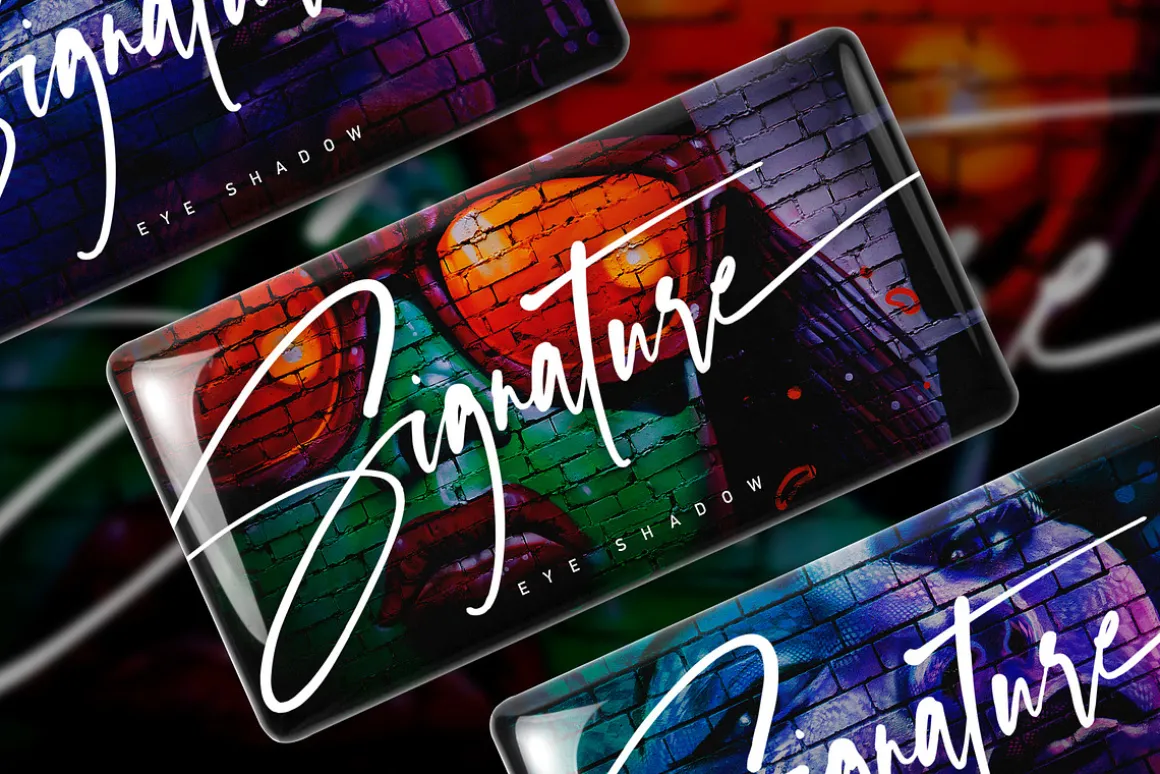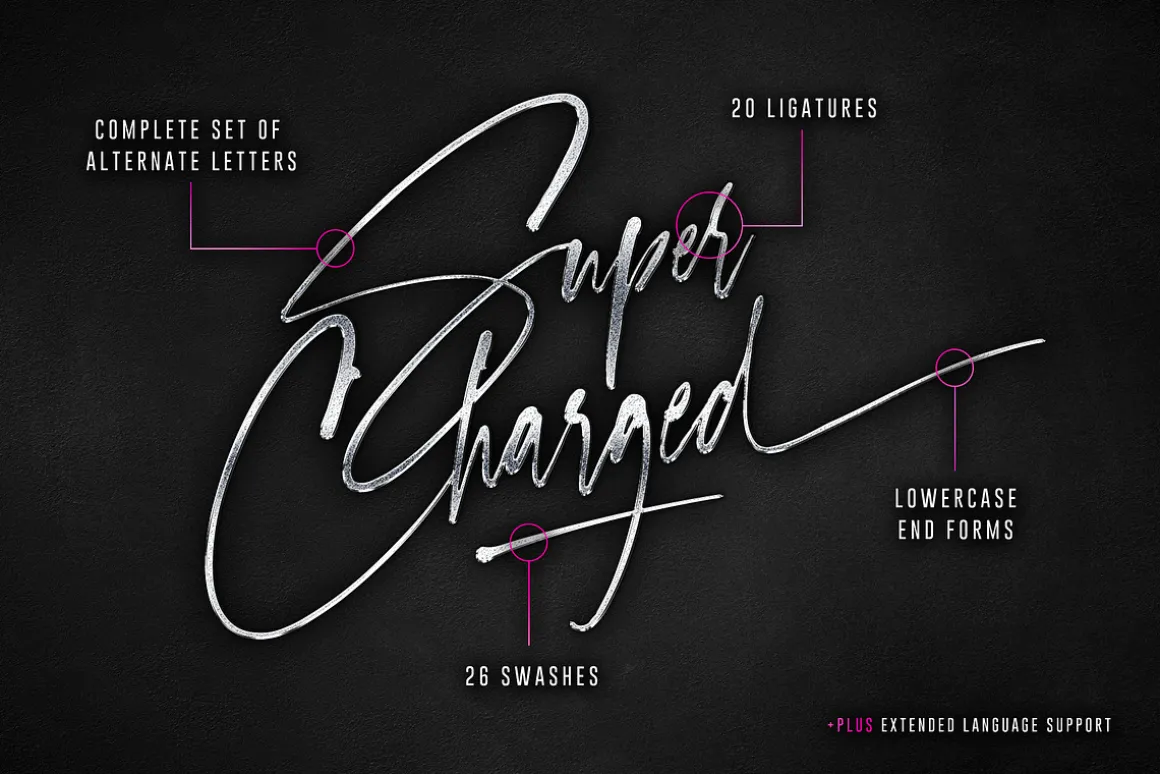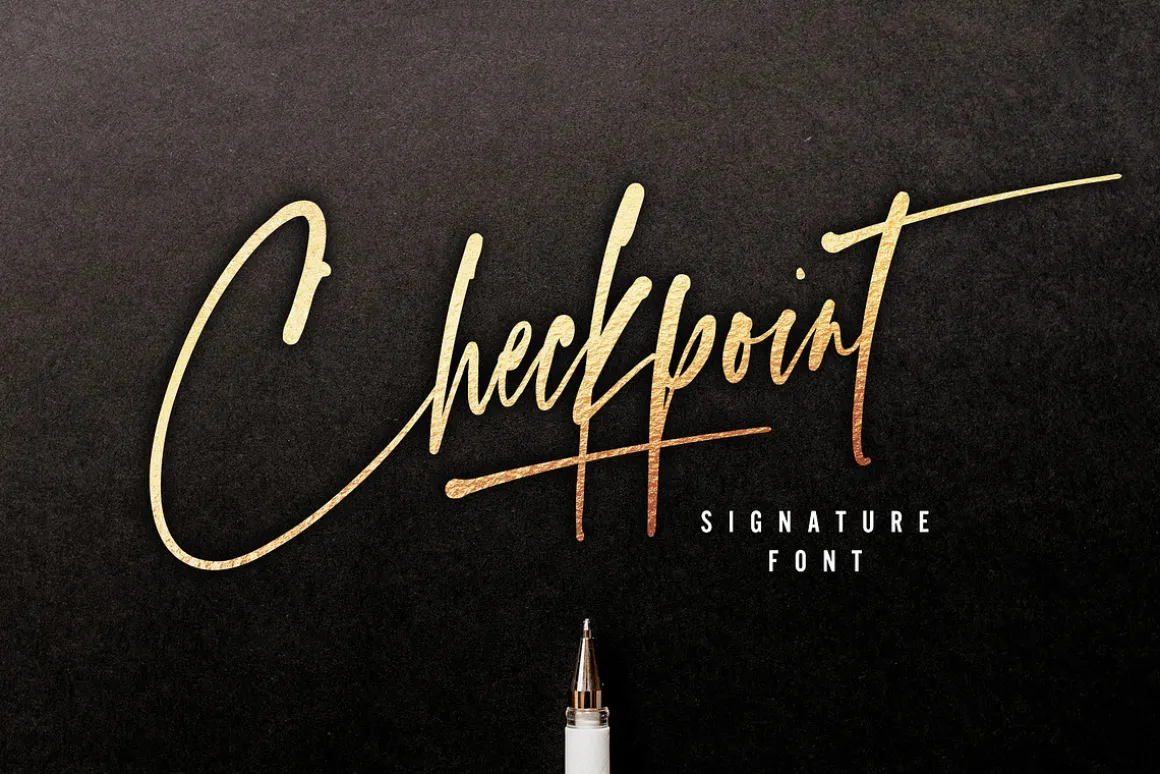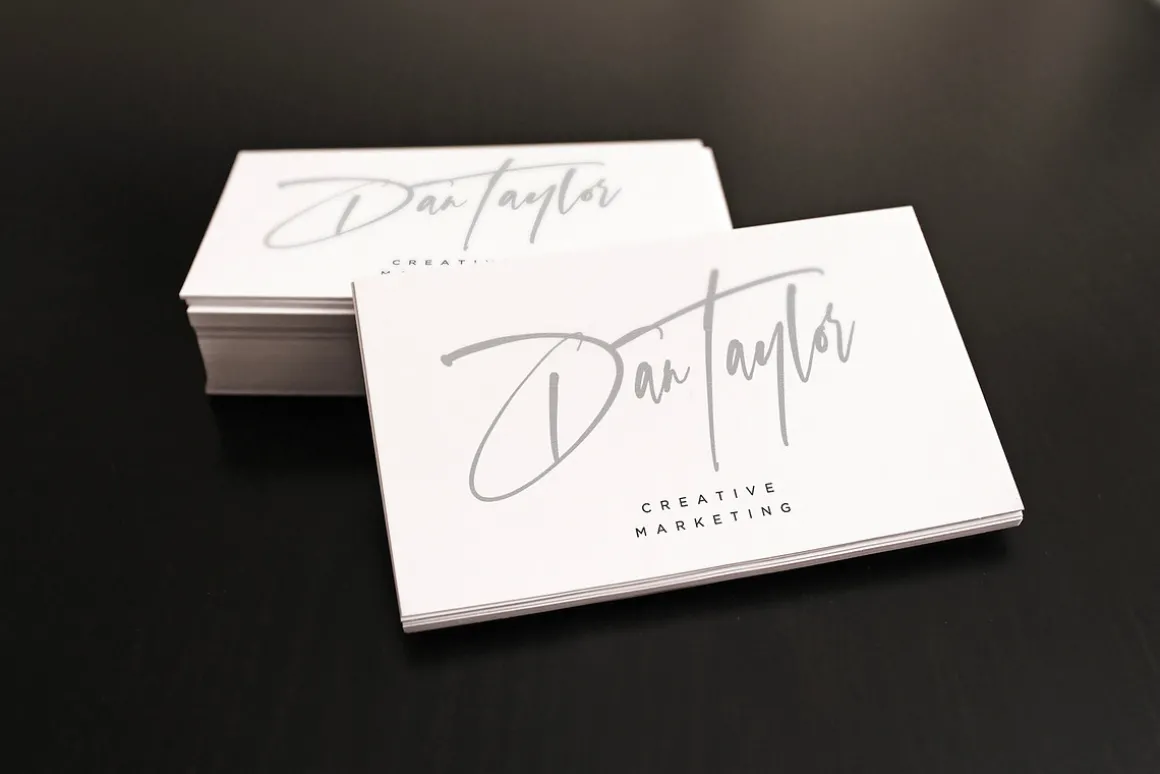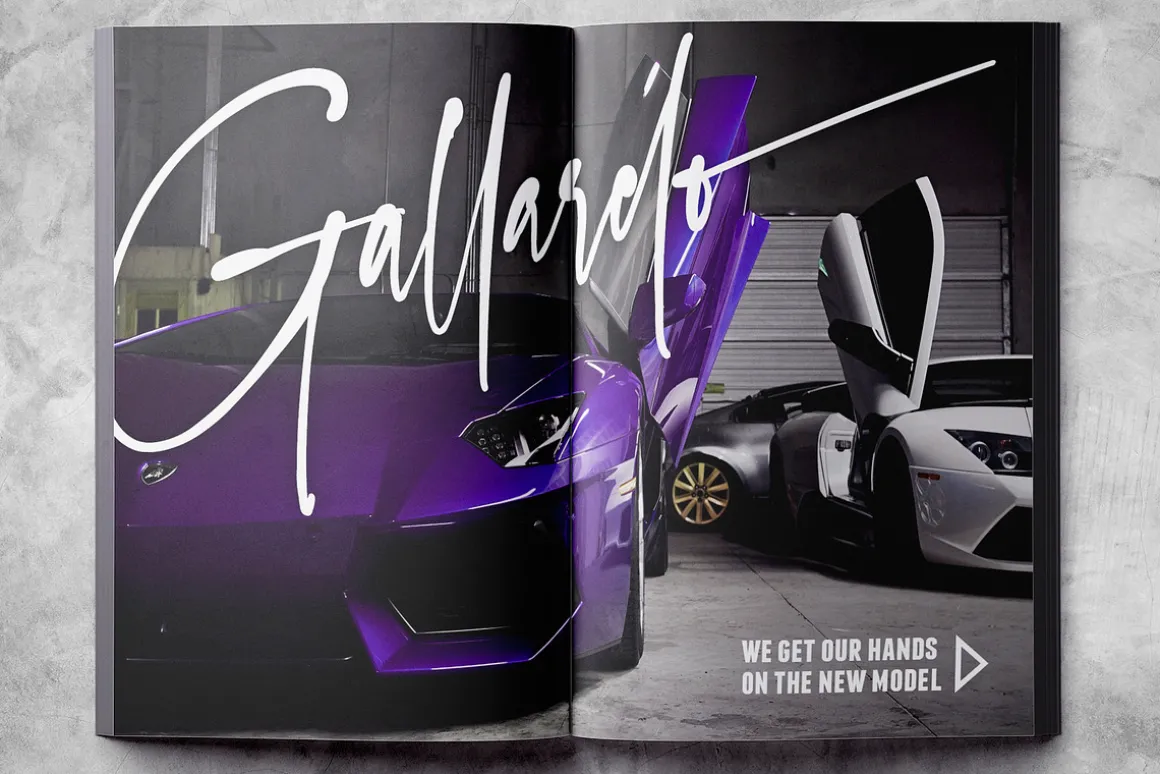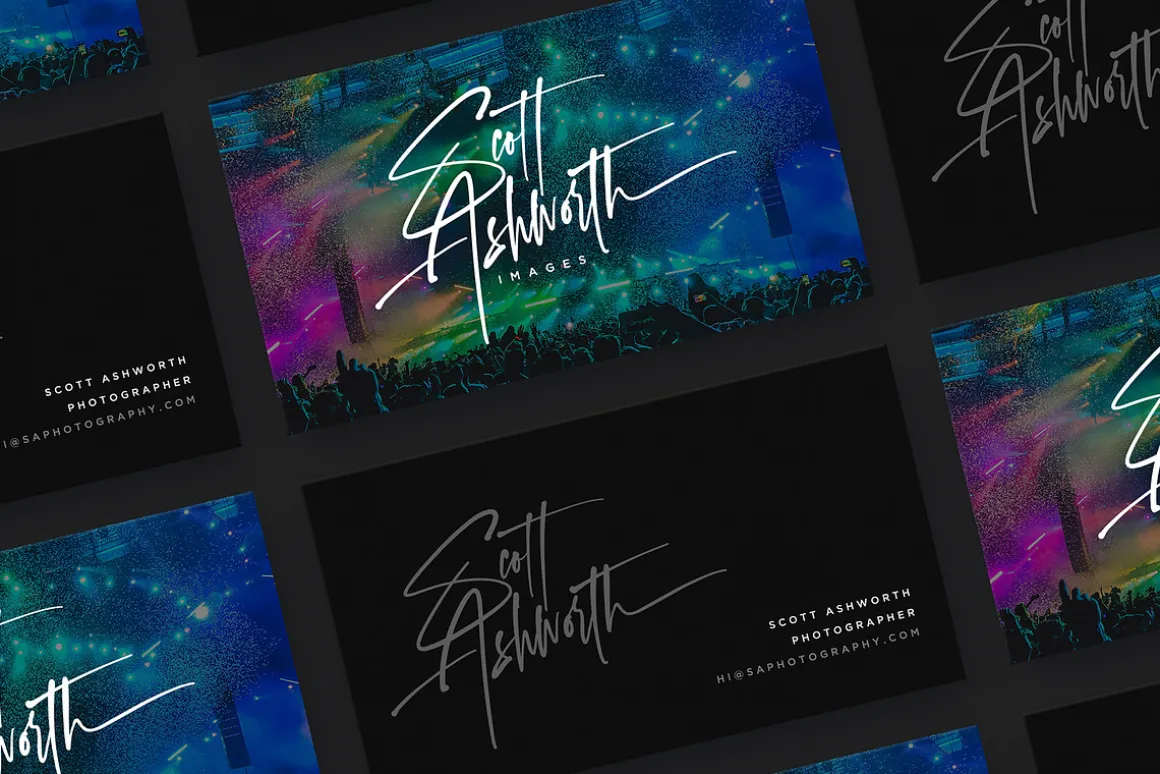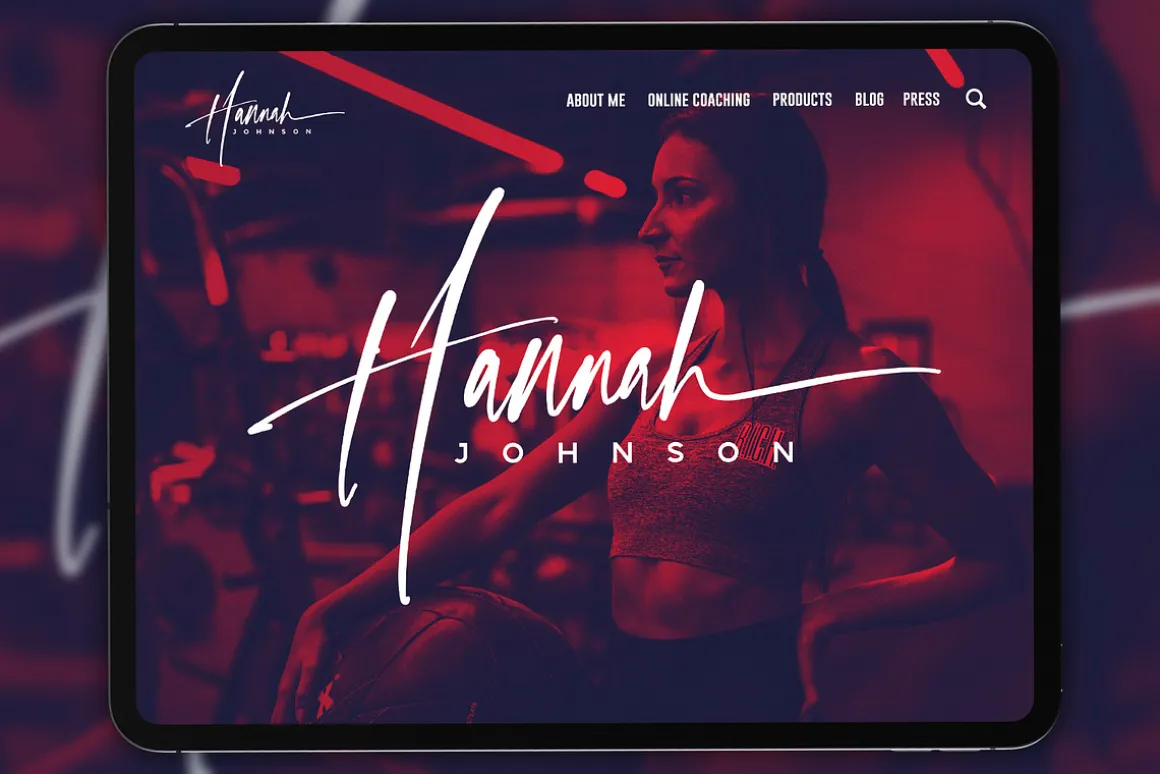
Make your point with Checkpoint Signature; a slick, high energy signature-style script font guaranteed to make a big impression. Digitally hand-drawn, it’s super-clean smooth flow and high-intensity pen strokes make an unmistakeable impact in logo/branding projects, large header text and product packaging.
Checkpoint Signature is packed full of extra features to give you plenty of customisation options. This includes; a full set of upper and lowercase alternate letters, 20 ligatures (double letters) to help the script lettering flow more naturally, 26 swashes and a full set of lowercase end forms to give your text that extra flair and finesse.
Checkpoint Signature • A smooth-edged signature style font containing upper & lowercase characters, numerals, and a large range of punctuation.
Checkpoint Signature Alt • This is a second version of Checkpoint, with a completely new set of both upper and lowercase characters. If you wanted to avoid letters looking the same each time to recreate a custom-made style, or try a different word shape, simply switch to this font for an additional layout option.
Checkpoint Signature Swash • A third font containing 26 hand drawn swashes. Simply type any a-z or A-Z character in this font to generate a swash. Perfect for underlining your Checkpoint text and adding a bit of extra flair!
Ligatures • 20 ligatures (double-letters) are included to help your lettering flow more naturally. Many programs will automatically have this feature switched on for you, but if you need any help accessing them, please feel free to drop me a message.
End forms• Are available for all lowercase characters when using the Checkpoint font. Use these characters at the end of your word to add a stylistic ‘end-swash’. These are accessible via software with opentype capability, by turning on ‘Stylistic Alternates’, or via a Glyphs panel.